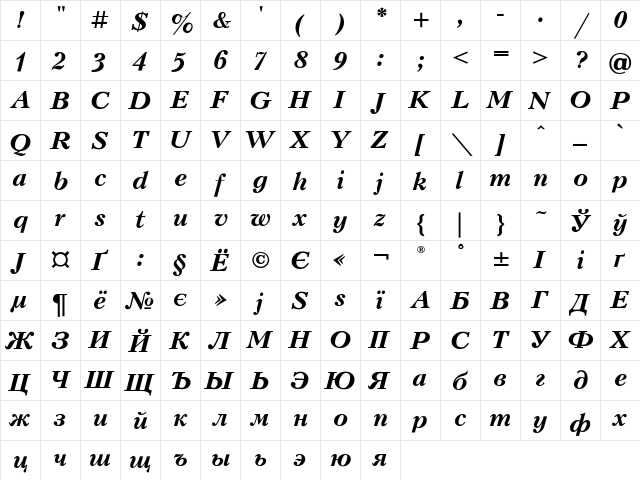
Peterburg BoldItalic
Design Context for Peterburg Typeface
Peterburg offers clean, dependable letterforms without strong stylistic allegiance, making it a practical choice for designers who need flexibility. The dynamic lean of this cut emphasises speed and emphasis in any layout. The heavy weight commands attention and anchors typographic hierarchies.
Pro Tip: Use Peterburg for emphasis, pull quotes, and subheadings where its slanted energy can add rhythm to the layout.